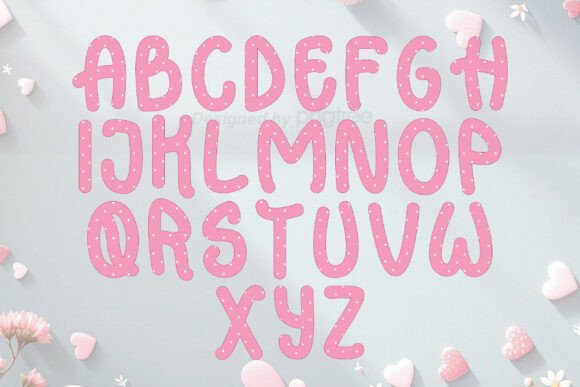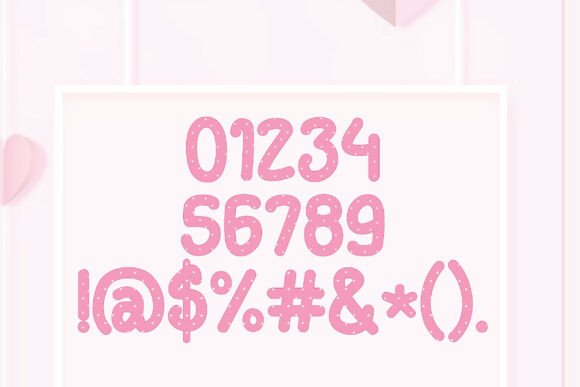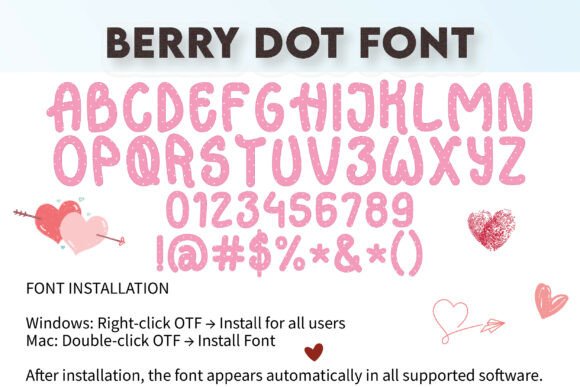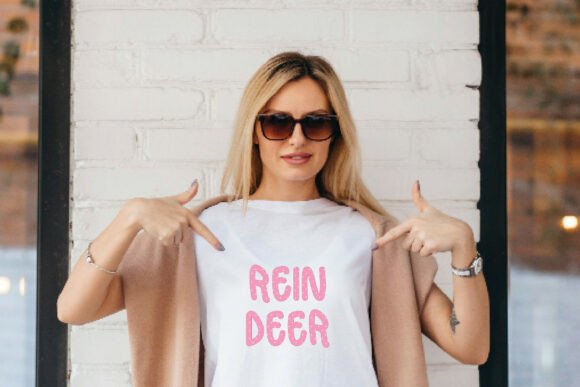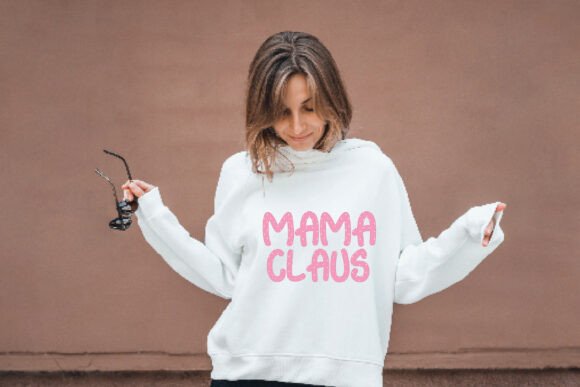
Berry Dot Font: Add a Playful Touch to Your Designs 🍓
Are you looking for a font that can add a playful and adorable look to your designs? Look no further than the Berry Dot Font! This charming font features dotted letter details and a cute berry-inspired style that is perfect for a variety of creative projects.
What is Berry Dot Font?
Berry Dot Font is a unique and modern font that is designed to bring a fun and sweet touch to your designs. The font features charming dotted letter details and a cute berry-inspired style that is sure to capture the attention of your audience. With its playful and adorable look, this font is perfect for designers and crafters who want to add a personal touch to their projects.
What Can I Use Berry Dot Font For?
Berry Dot Font is a versatile font that can be used for a variety of creative projects, including:
- Kids projects: The font’s playful and adorable look makes it perfect for kids’ projects, such as educational materials, activity sheets, and more.
- Valentine cards: The font’s cute berry-inspired style makes it perfect for Valentine’s Day cards and other love-themed designs.
- Party invitations: The font’s playful and modern look makes it perfect for party invitations, including birthday parties, baby showers, and more.
- Stickers: The font’s cute and colorful style makes it perfect for stickers, including labels, tags, and more.
- Social media graphics: The font’s modern and playful look makes it perfect for social media graphics, including Facebook posts, Instagram stories, and more.
- Scrapbooking: The font’s cute and colorful style makes it perfect for scrapbooking, including photo albums, journaling, and more.
- Branding: The font’s modern and playful look makes it perfect for branding, including logos, business cards, and more.
- Digital crafts: The font’s versatile style makes it perfect for digital crafts, including digital art, illustrations, and more.
How Does Berry Dot Font Display?
Due to system limitations, the font preview may appear black and white. However, when used in supported design software, such as Adobe Illustrator, Photoshop, Canva, or Figma, the font displays fully colored.
Why Should I Use Berry Dot Font?
There are many reasons why you should use Berry Dot Font for your creative projects. Here are just a few:
- Unique and modern style: Berry Dot Font features a unique and modern style that is sure to capture the attention of your audience.
- Playful and adorable look: The font’s playful and adorable look makes it perfect for kids’ projects, Valentine’s Day cards, and other creative projects.
- Versatile: Berry Dot Font is a versatile font that can be used for a variety of creative projects, from kids’ projects to branding and digital crafts.
In conclusion, Berry Dot Font is a unique and modern font that is perfect for designers and crafters who want to add a playful and adorable look to their designs. With its charming dotted letter details and cute berry-inspired style, this font is sure to capture the attention of your audience. Whether you’re working on kids’ projects, Valentine’s Day cards, party invitations, or digital crafts, Berry Dot Font is a versatile font that can help you achieve your creative goals.